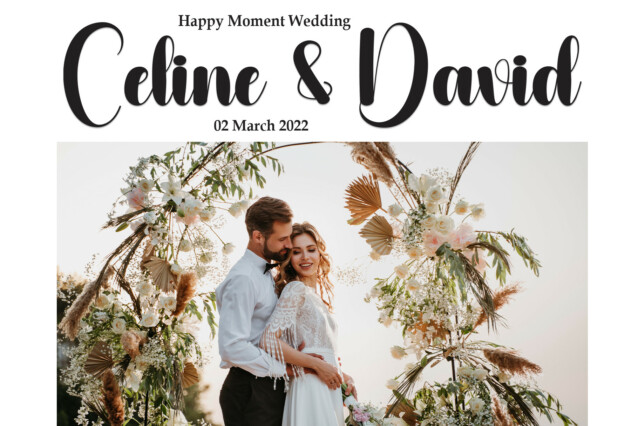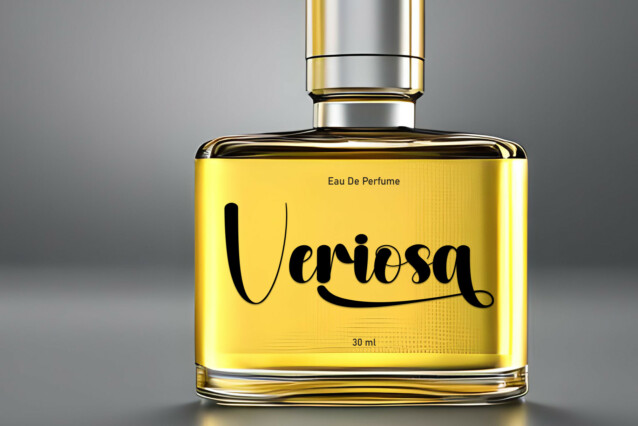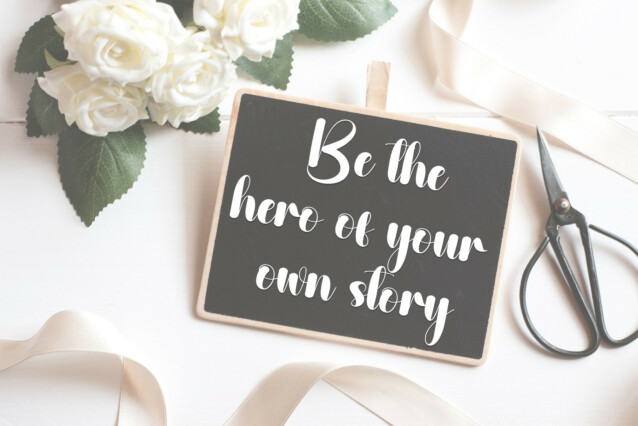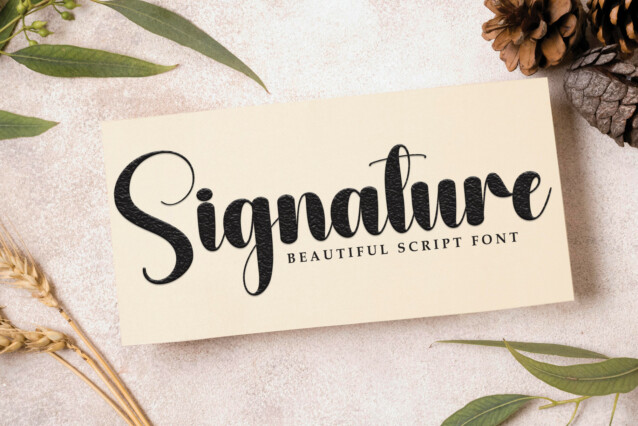
Sidecar Script Font
Sidecar Script Font is a stylish and incredibly elegant script font. It looks stunning on wedding invitations, thank you cards, quotes, greeting cards, logos, business cards and every other design which needs a handwritten touch.